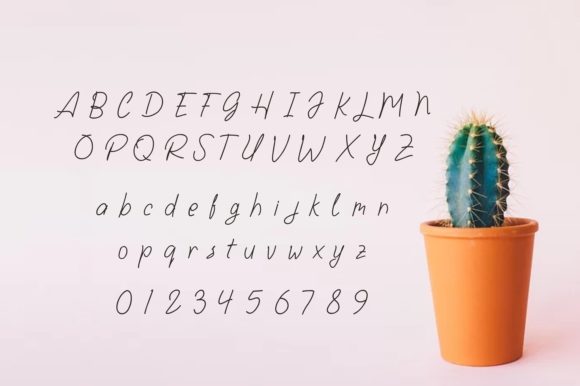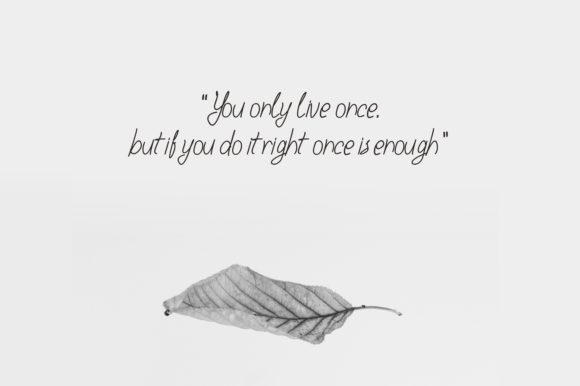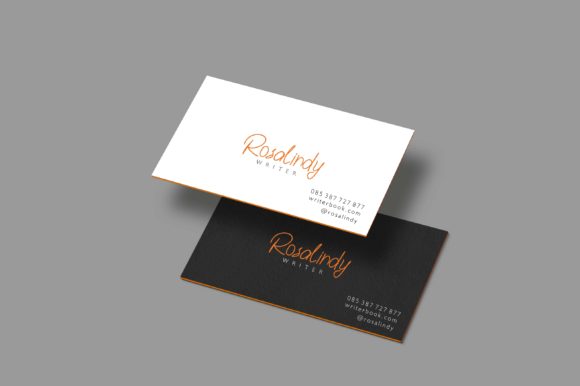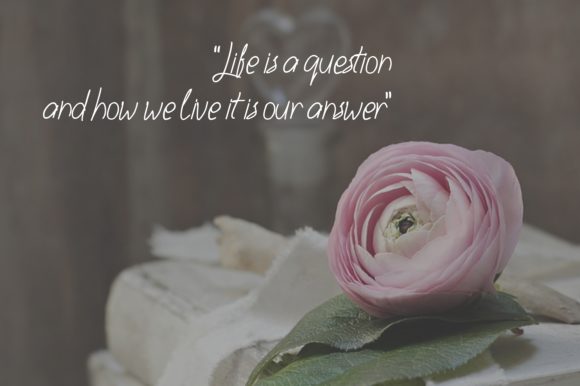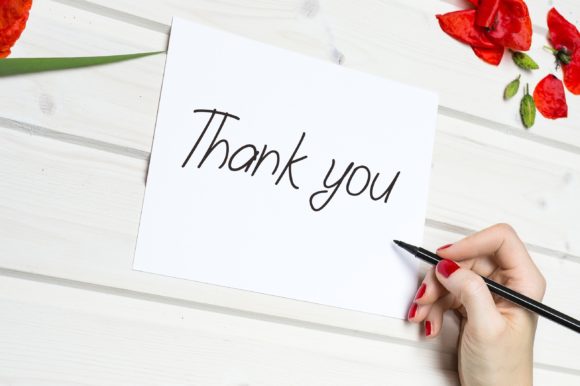
Introduction to Larasaky Font
As I sat in my cozy craft room, surrounded by scraps of paper, glue, and glitter, I couldn’t help but feel a sense of excitement. I was about to bring my latest creative project to life, and I knew just the perfect font to make it shine: the Larasaky Font. Its authentic natural feel is what sets it apart from other fonts, making it a must-have for any crafting enthusiast.
For designers, the Larasaky Font is a valuable resource. Its high-quality design makes it perfect for any project, whether you’re creating a beautiful invitation or a stunning piece of artwork. With its transparent background, you can easily overlay it onto any image or design element, giving you endless possibilities. And the best part? It’s available for free download, making it accessible to designers of all levels.
Whether you’re a seasoned pro or just starting out, the Larasaky Font is a must-have in your design arsenal. Its versatility and beauty make it the perfect addition to any creative project, and its high-quality design ensures that your work will stand out from the crowd.
Key Features of Larasaky Font
• High-quality design resource ideal for creative projects requiring a unique touch.
• Transparent background, allowing for seamless integration into various design elements.
• Unique characteristics: elegant, modern, and sophisticated, making it perfect for luxury branding and high-end design projects.
Honest Review: Larasaky Font
I recently came across the Larasaky Font, and I must say it’s a great addition to any designer’s toolkit. This free download has been a game-changer for my creative projects.
• ✨ High-quality design: The Larasaky Font boasts crisp, clean lines and a sophisticated aesthetic that elevates any design.
• ✨ Transparent background: This feature allows for seamless integration with backgrounds and other design elements.
• ✨ Versatile: The Larasaky Font is perfect for a wide range of design projects, from branding to web design.
While the Larasaky Font excels in many areas, there are a few limitations to be aware of:
• ⚠️ Limited character set: The Larasaky Font may not include the full range of characters and symbols you need for certain projects.
• ⚠️ Not suitable for small text: The font’s high quality comes at the cost of readability at smaller font sizes.
Overall, I’m thoroughly impressed with the Larasaky Font. Its high-quality design and transparent background make it a valuable resource for any designer. With a little creativity and planning, you can work around the limitations and achieve stunning results.
Larasaky Font
Tips for Getting the Most Out of Larasaky Font
To get the most out of the Larasaky Font, use it in conjunction with a transparent background to create a high-quality design. This font is perfect for creative projects that require a unique and eye-catching look.
The Larasaky Font is commonly used in logos, branding materials, and other design elements that require a high level of creativity and visual appeal. Its transparent background makes it easy to layer over other design elements, making it a versatile design resource for any creative project.